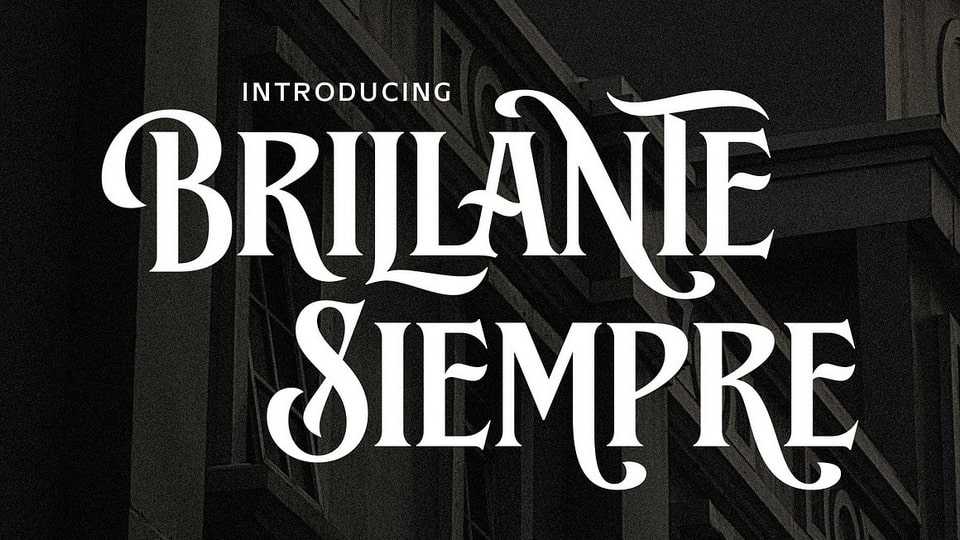
Download Brillante Siempre font, a fancy serif typeface that blends classic elegance with modern sophistication, designed with beautiful ornamental shapes.